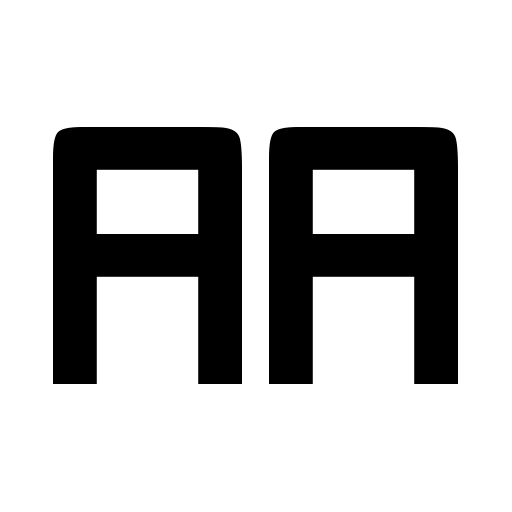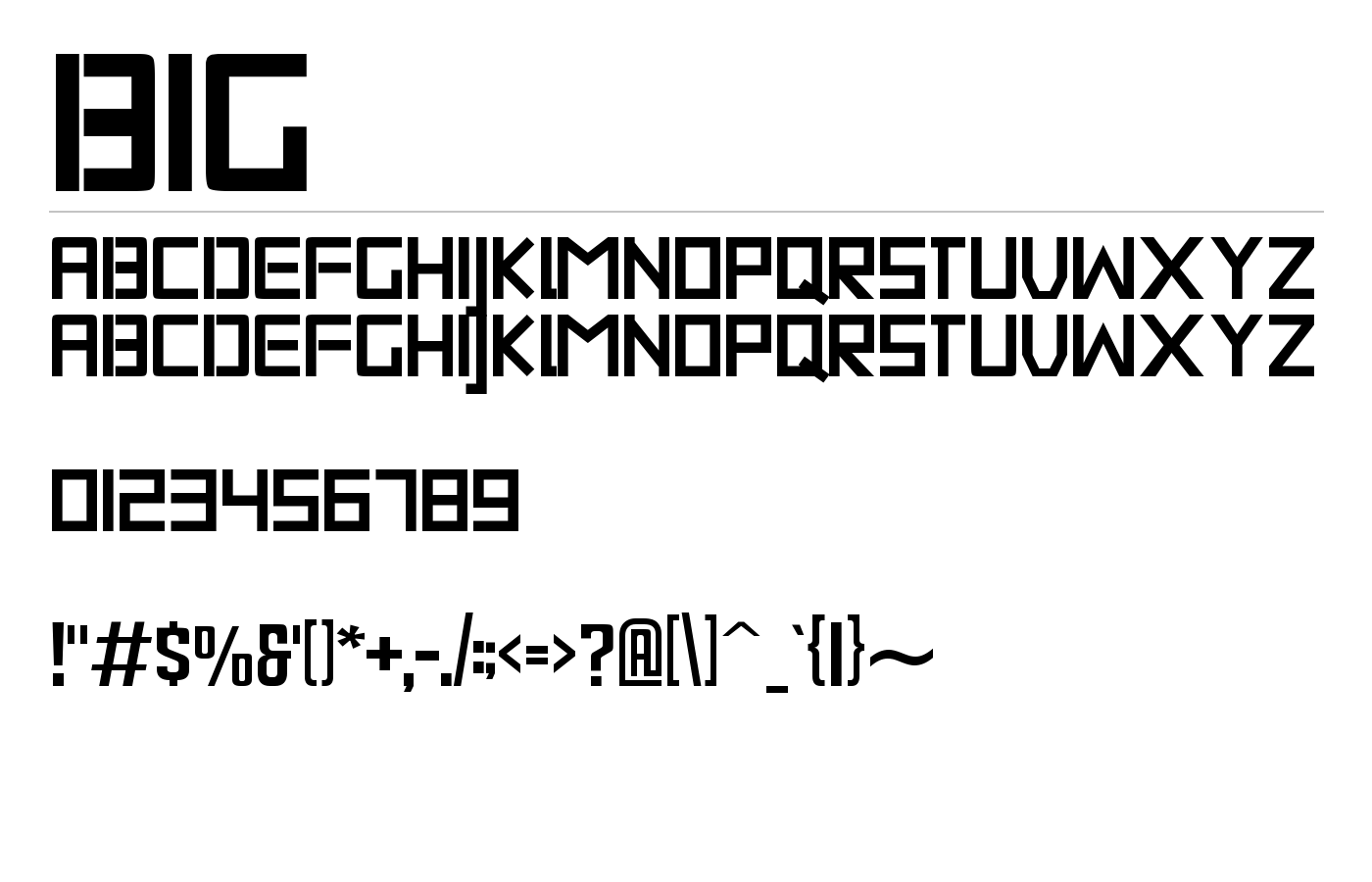
Big Font is a bold, geometric sans serif typeface with a strong, blocky structure and sharp edges that give it a modern and industrial feel. Its tall x-height and tight, uniform spacing make it highly legible and impactful, ideal for striking headlines, logos, and designs that require a bold and distinctive presence. This font works best in branding and display settings where a futuristic or tech-inspired aesthetic is desired.
Big Font
About Big Font